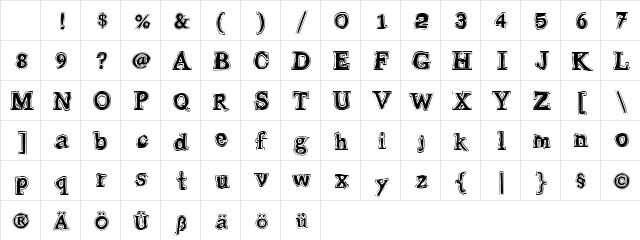
Gleam has an approachable, lighthearted character - its loose, expressive forms are well-suited to children's content, casual branding, and fun-first design.
Font Pairing: Pairs well with a rounded or humanist sans for body copy, maintaining the friendly tone without relying on Gleam to carry extended reading.
Pro Tip: Use Gleam at larger display sizes where its expressive character can land. Pair with a clean, simple sans for body copy to maintain readability.